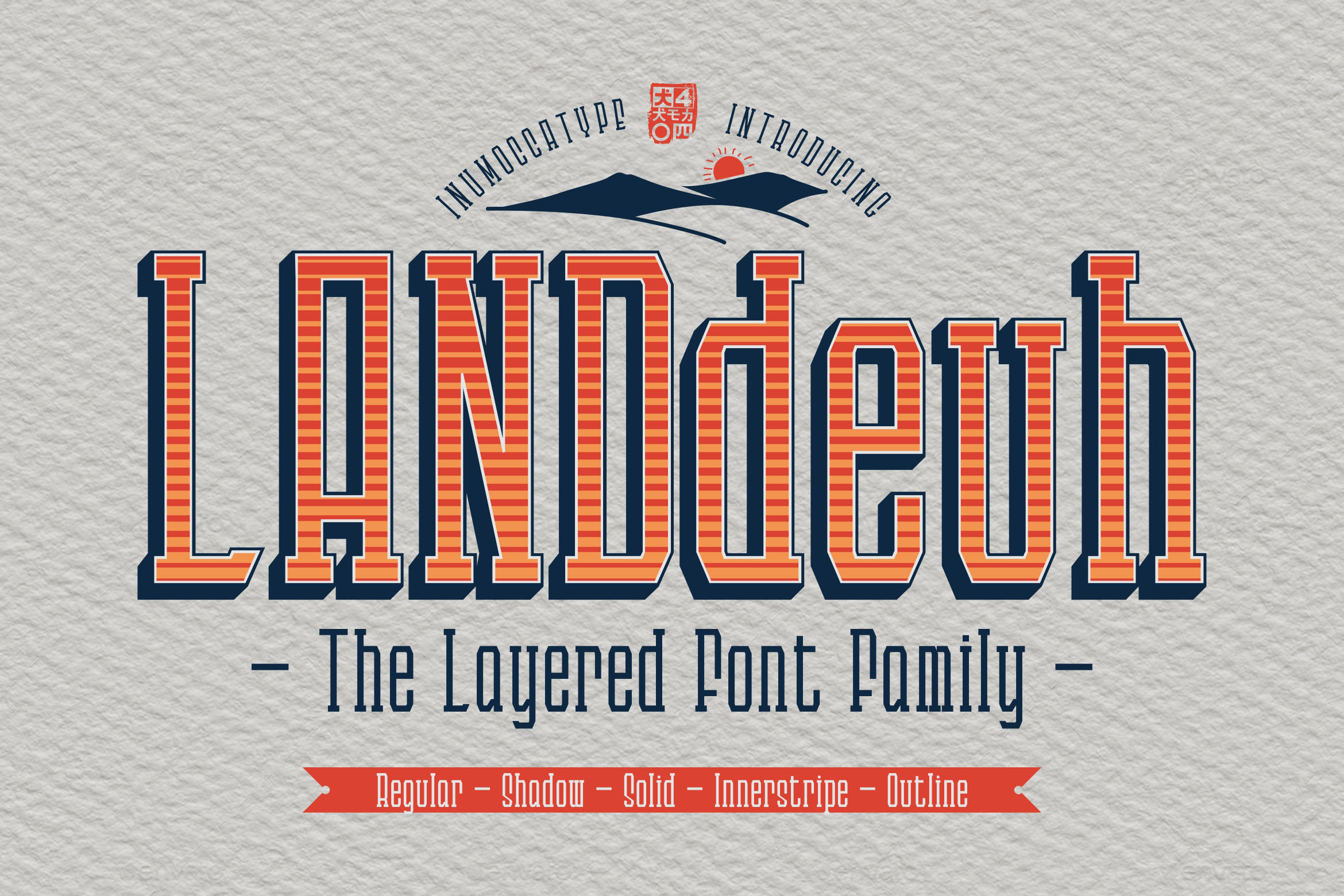
LANDdeuh (Layered font Family)
LANDdeuh Typeface, The LAYERED font Family with 5 variants, the variants are combine with different colors, its EASY to use enjoy with your project
- Unique glyphs
- Multilingual Characters
- UPPERCASE
- Numeric
- Symbol
- Punctuation Character
LANDdeuh Normal
LANDdeuh Shadow (3D Shadow)
LANDdeuh Ver.2 (Replete/solid)
LANDdeuh Gradient (innerstripe)
LANDdeuh Outline